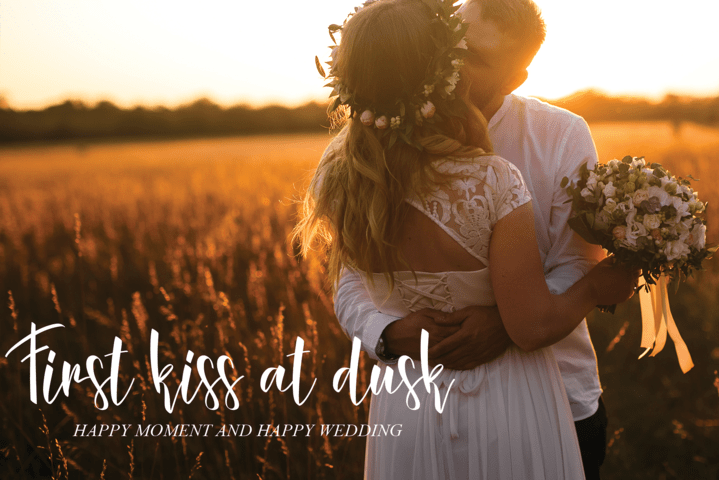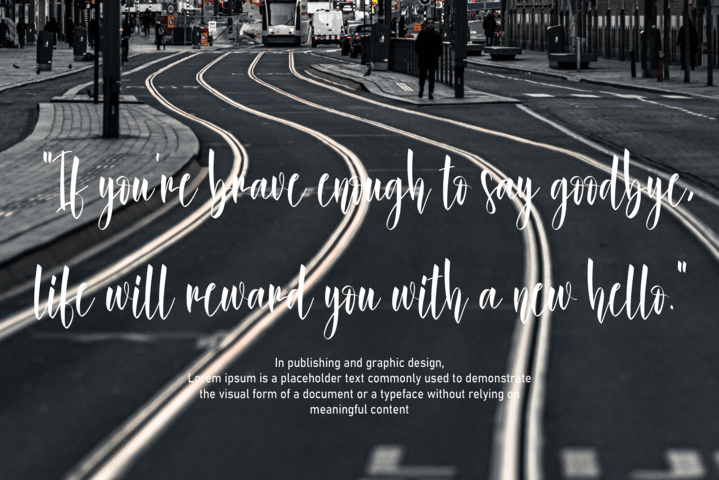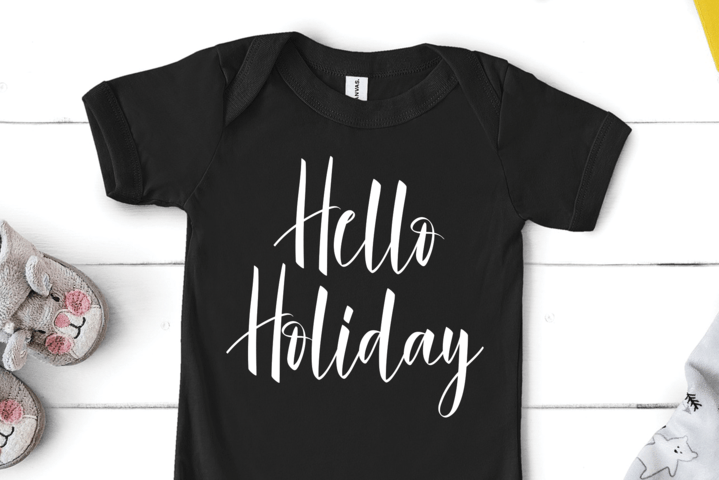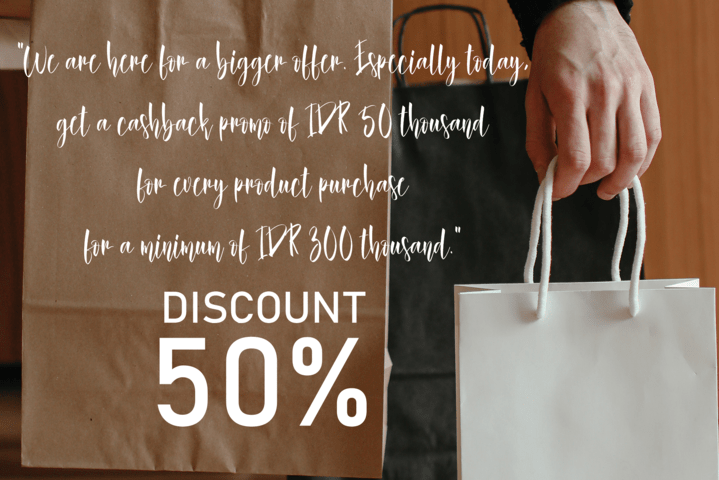
Santaclaus Christmas Script Font
This is a beautiful calligraphy font, perfect for Christmas cards, thank you cards, business cards, quotes, magazines, product tags, fashion, wedding designs, and more!